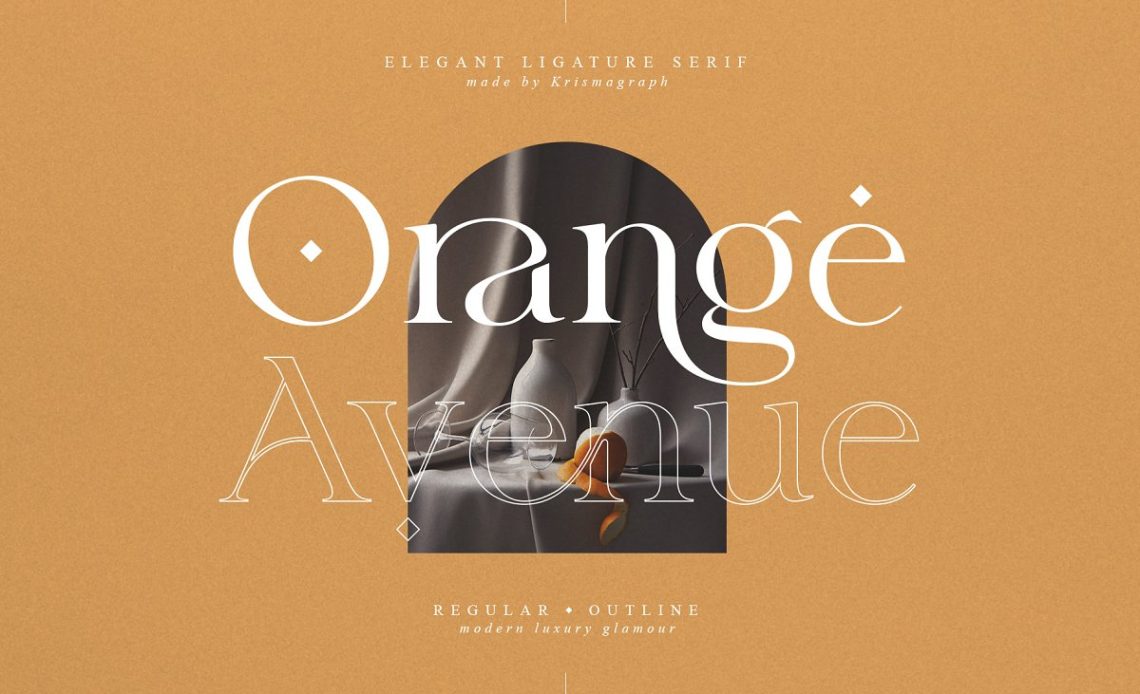
Discover the perfect font for your next creative project with Orange Avenue, the elegant ligature serif font designed by Ratna Krismawati. With its soft curves and high contrast glyphs, Orange Avenue offers a unique blend of femininity and masculinity that is perfect for any art gallery or creative venture.
Orange Avenue comes in two versions, Regular and Outline, and includes epic ligatures and alternates to help bring your design to life. Whether you're working on a layout design for quotes or body copy, or need a display font for headings, logos, branding, magazines, product packaging or invitations, Orange Avenue has got you covered.
So why not elevate your creative vision today with Orange Avenue, the best font for art galleries and beyond? With its eye-catching design and versatile functionality, it's the perfect choice for anyone looking to make a statement with their typography.